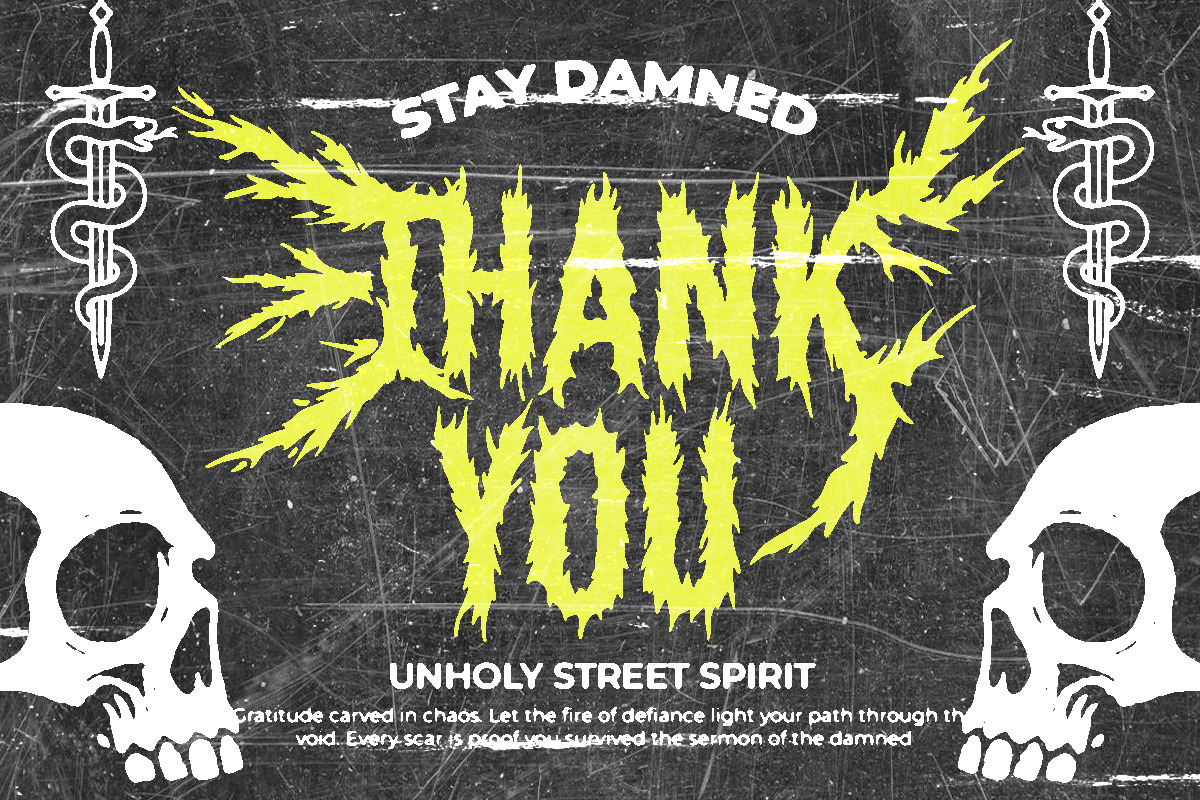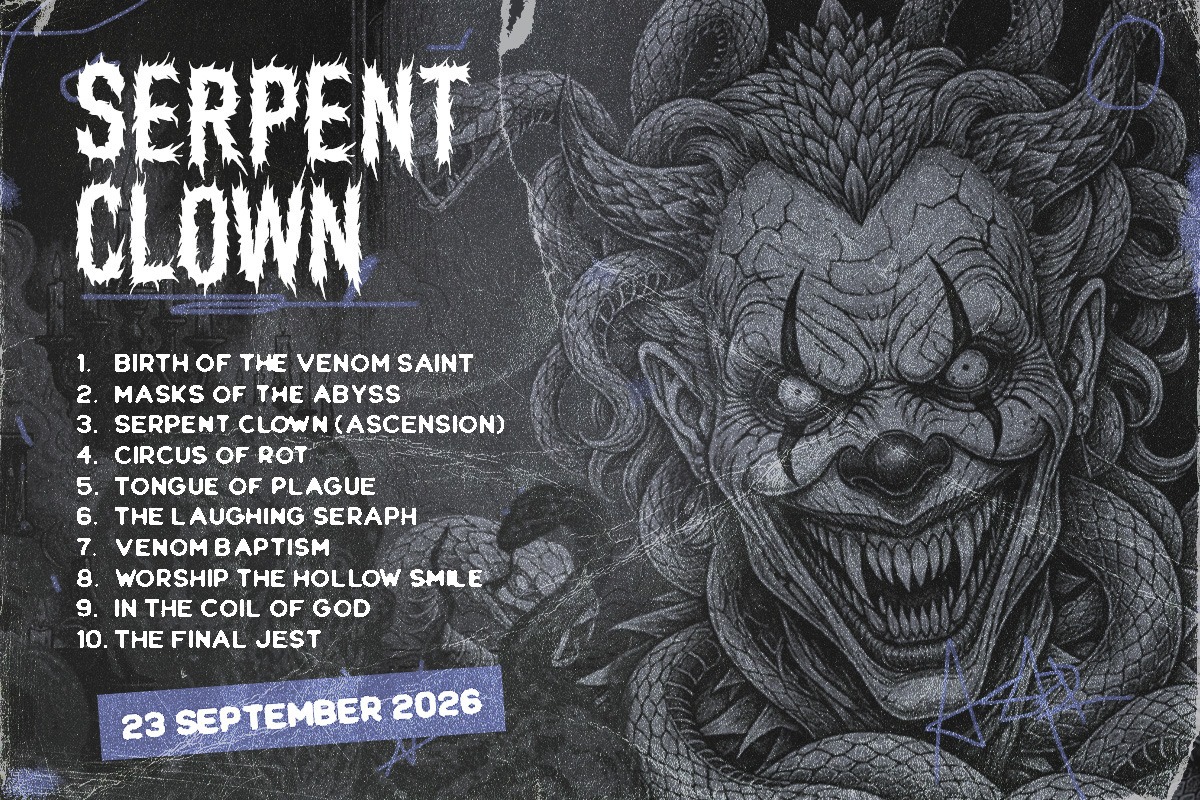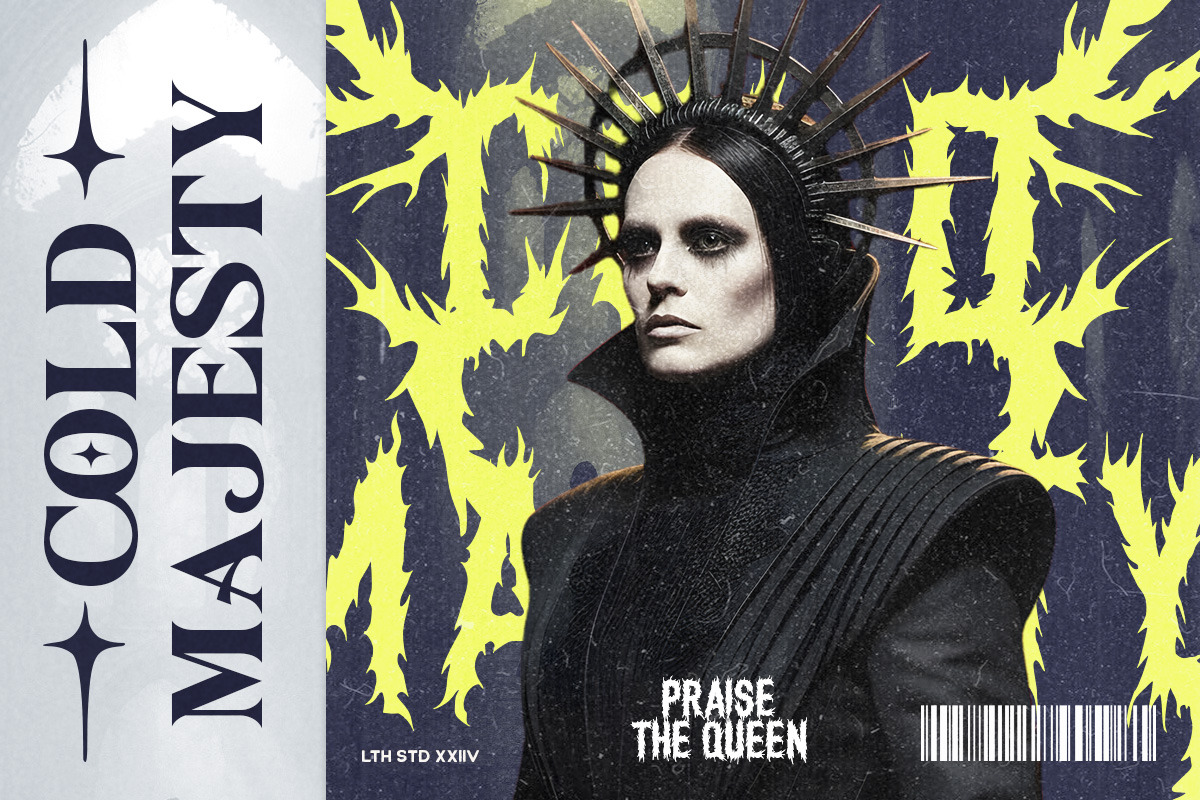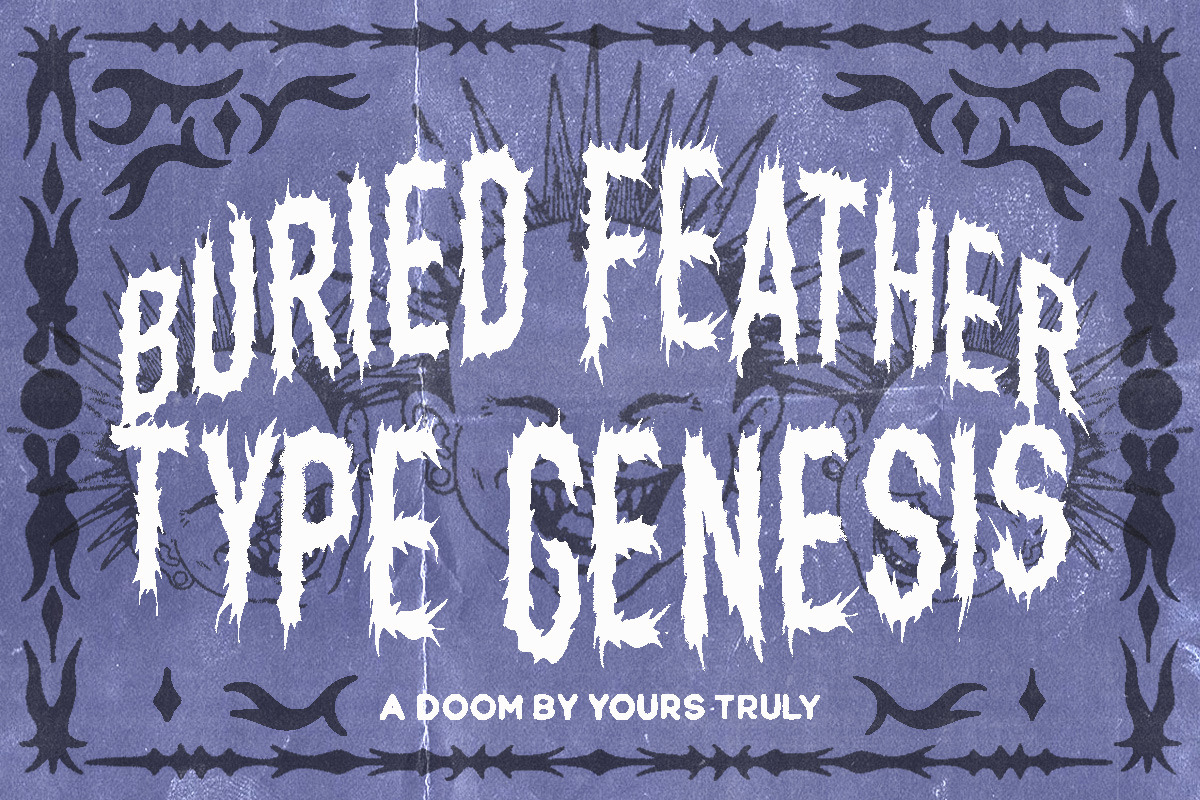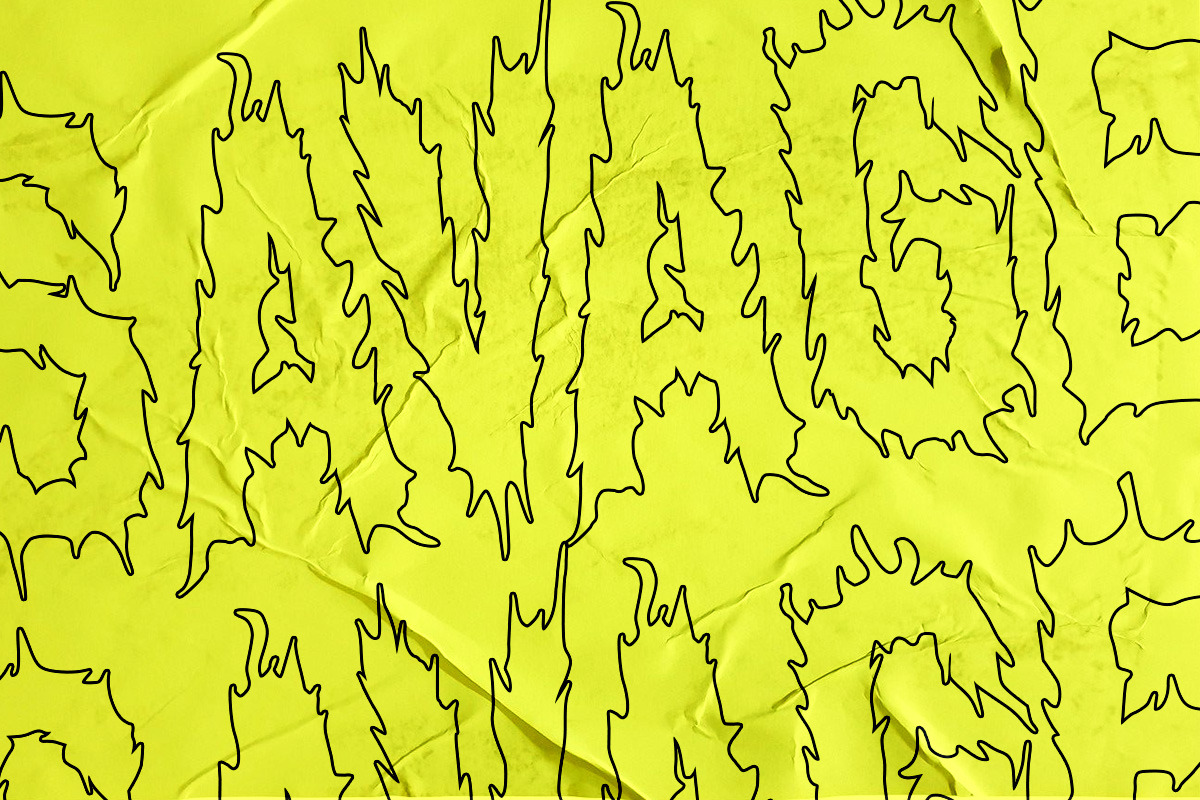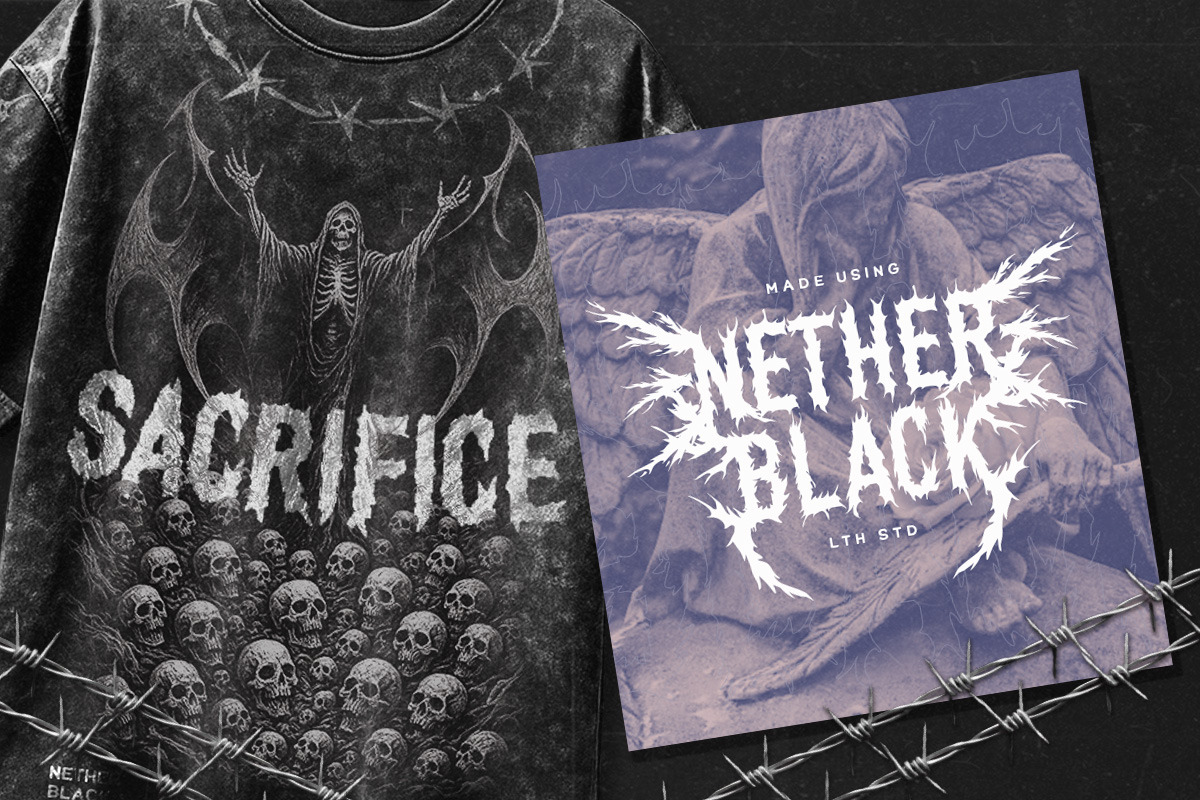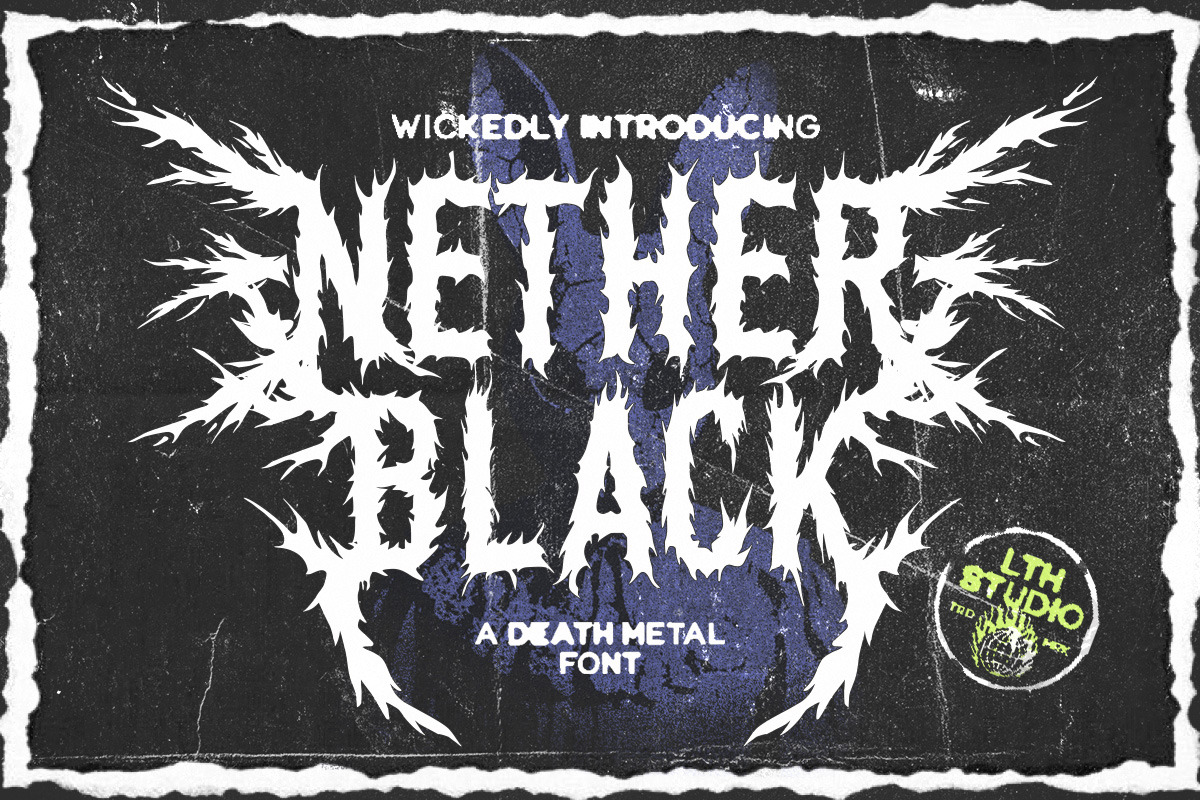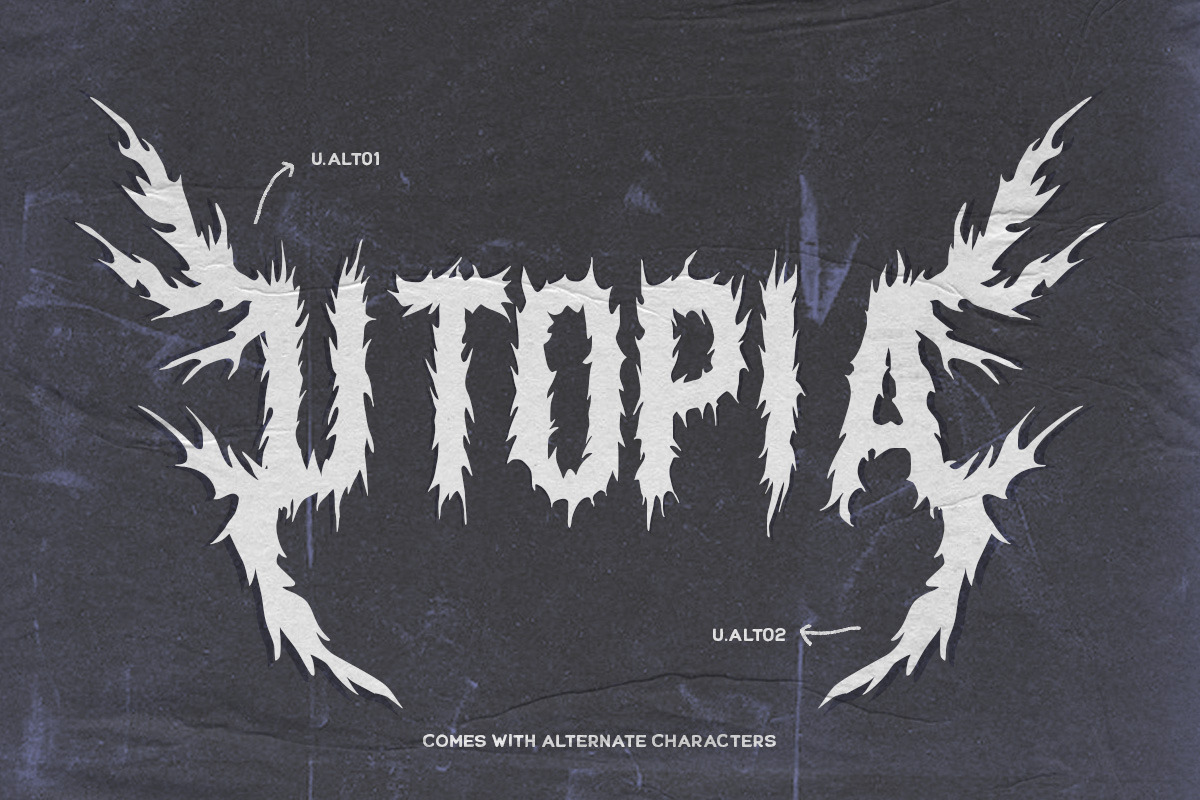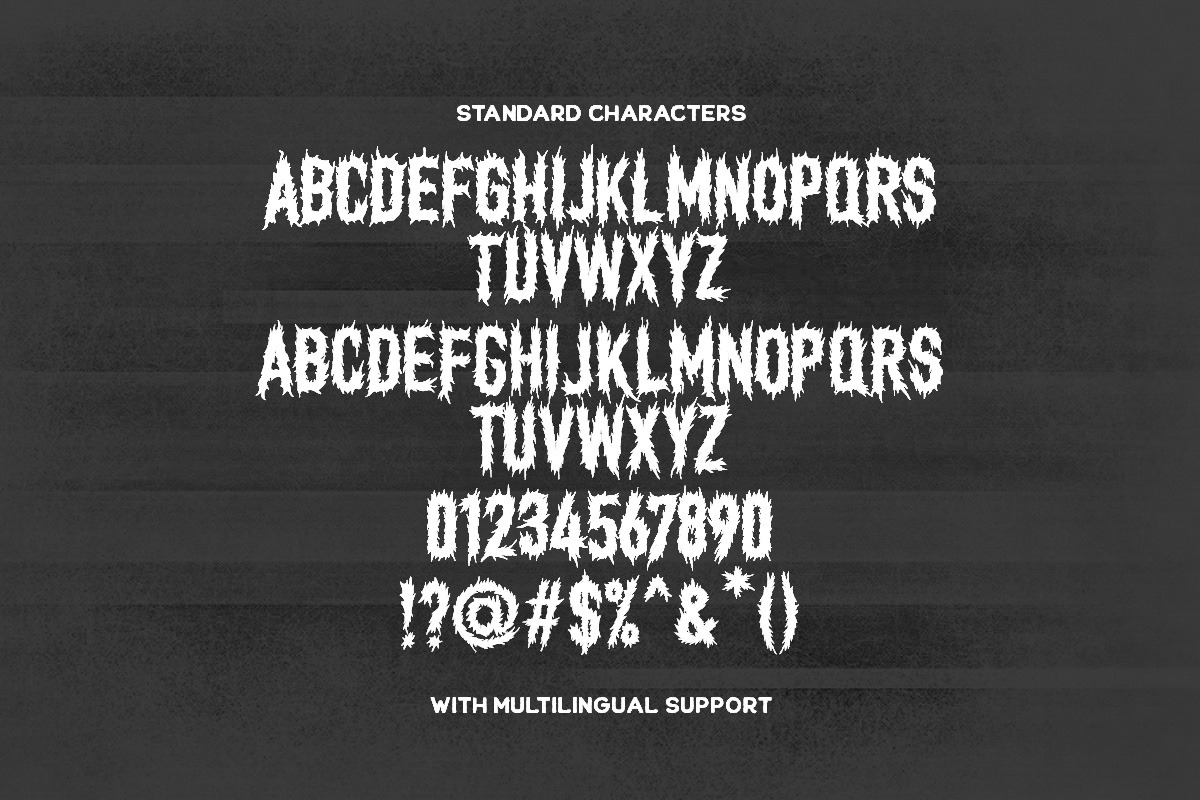
Nether Black Death Metal Font
Nether Black is a fierce and chaotic death metal font designed to embody raw aggression and dark energy. Its jagged, thorn-like letterforms scream rebellion and intensity, making it perfect for album covers, posters, logos, and horror-themed visuals. Features :